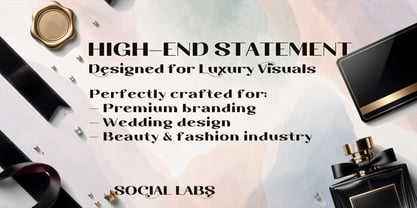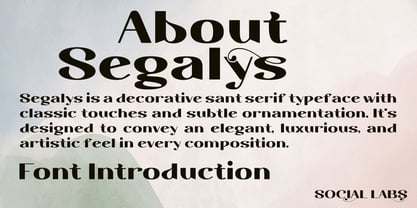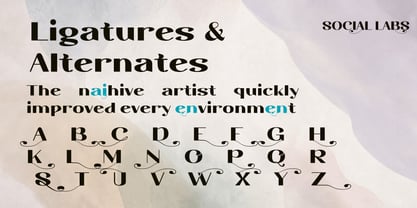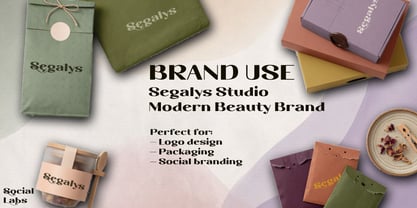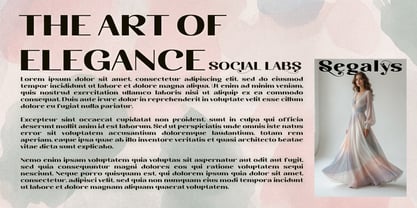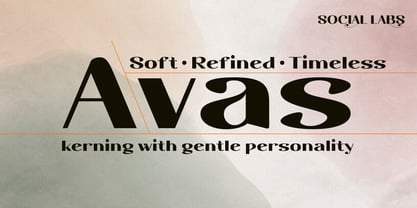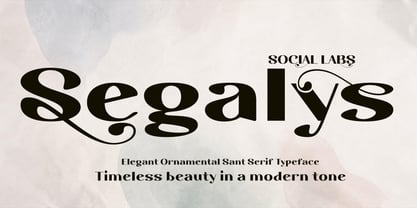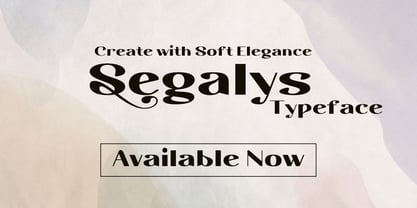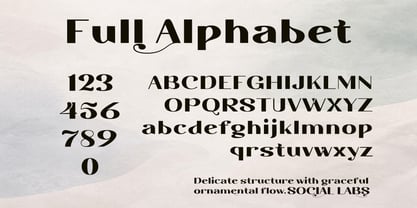
Segalys
by Social Labs
The Segalys Font Family was designed by Muhammad Naufal and published by Social Labs. Segalys contains 5 styles and family package options. More about this family
Segalys is an elegant ornamental sans serif typeface designed to bring a sense of softness, refinement, and modern luxury into your designs. With its graceful curves and delicate swashes, Segalys offers a unique balance between classic sophistication and contemporary aesthetics. Crafted with attention to detail, each letterform flows beautifully, creating a harmonious and visually pleasing composition, perfect for designs that require a touch of elegance without being overwhelming
Designers: Muhammad Naufal
Foundry: Social Labs